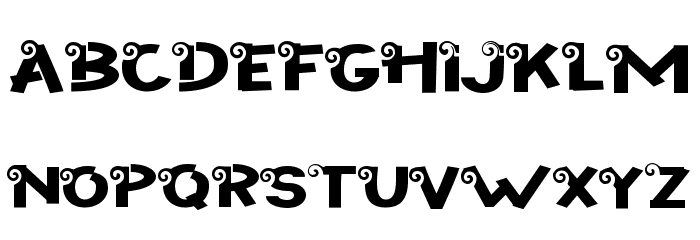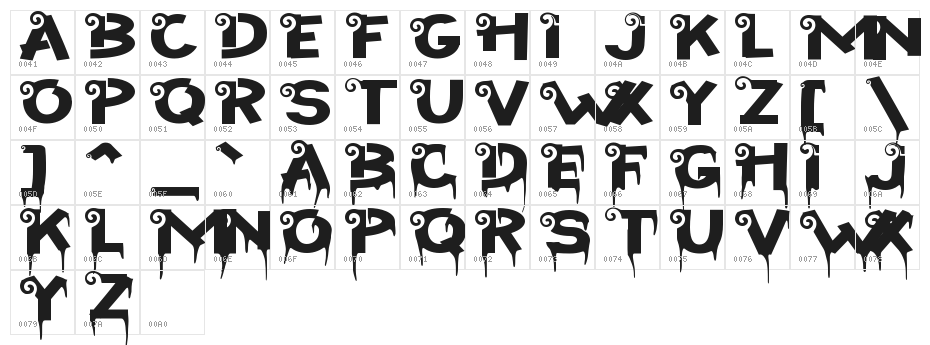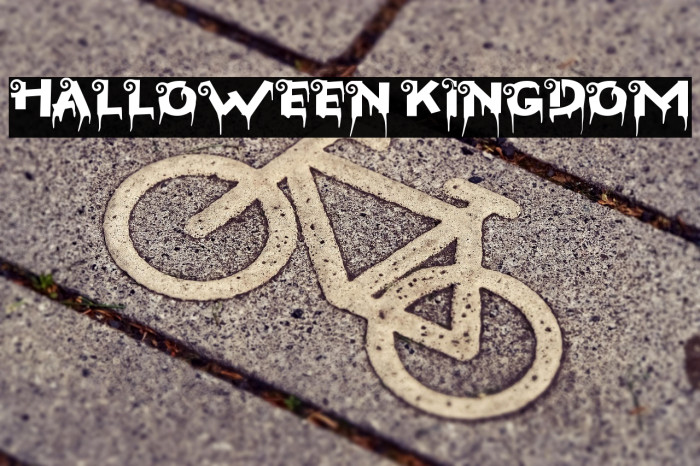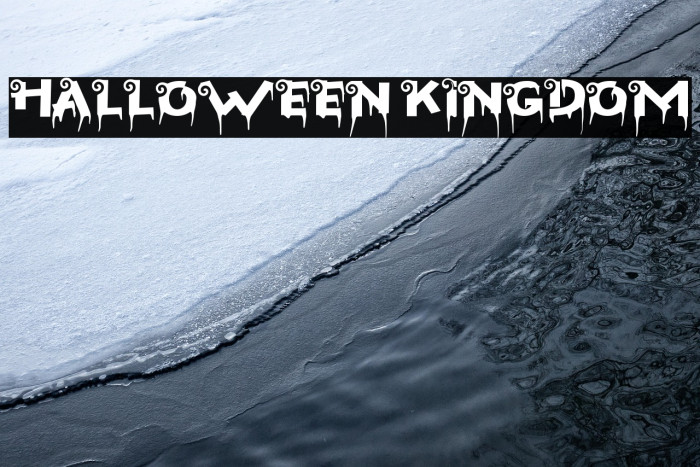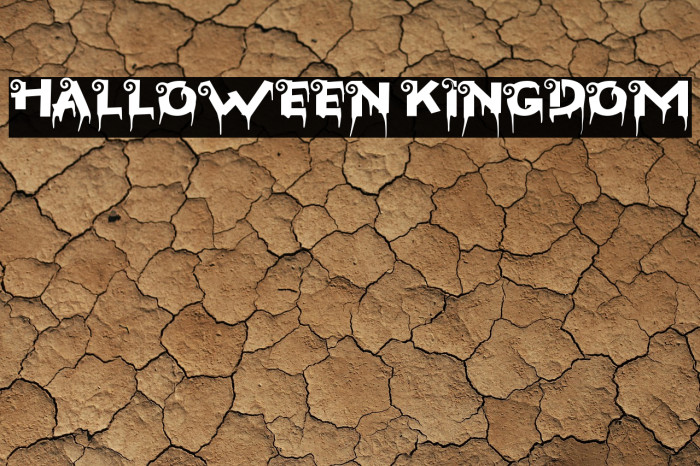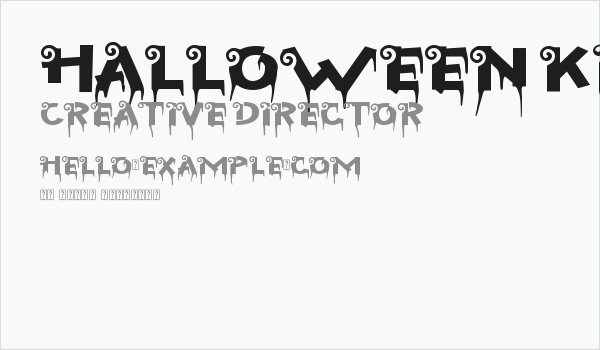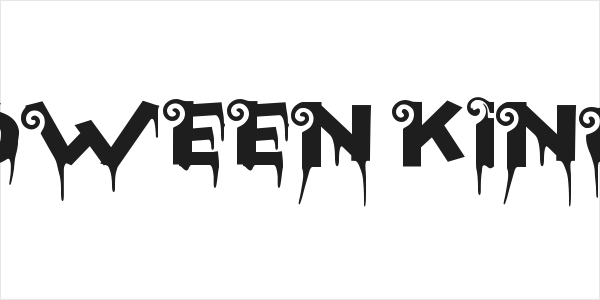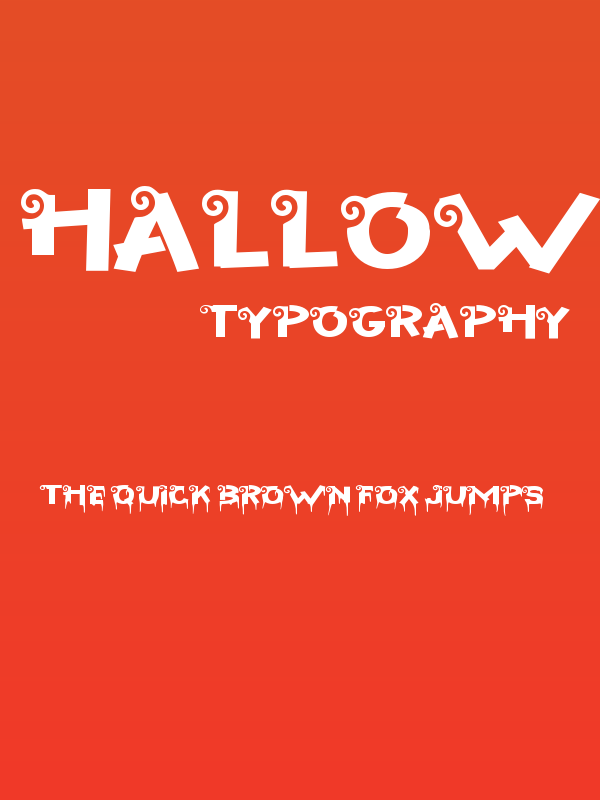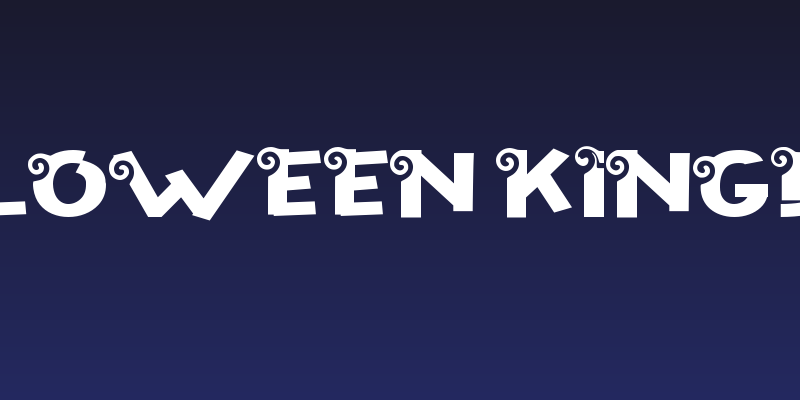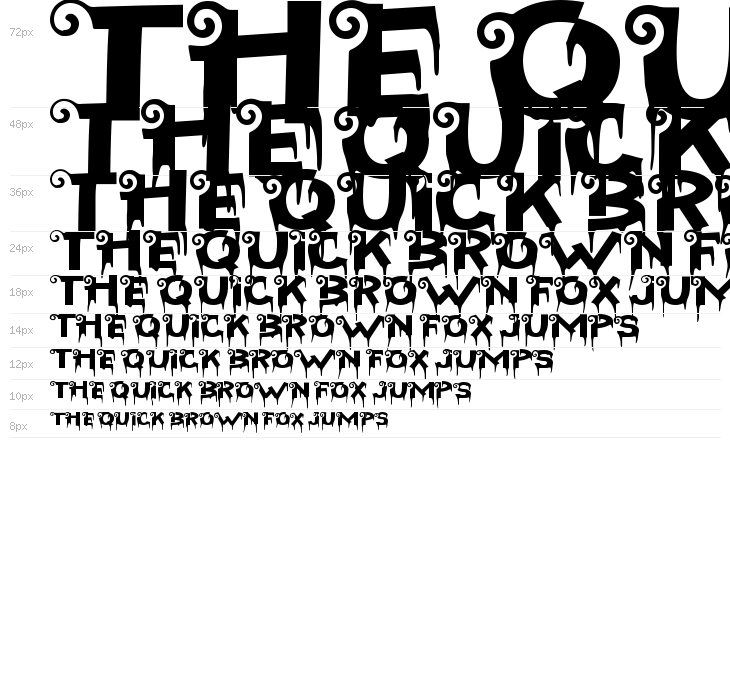
Halloween Kingdom Font
Halloween Kingdom Description
This font features a playful and spooky design, perfect for Halloween-themed projects. The uppercase letters have a whimsical flair with curled accents, adding a touch of mystery and fun. The strokes are bold and consistent, with some letters featuring dripping effects that enhance the eerie vibe. The font maintains a decorative style throughout, making it ideal for festive occasions. Its unique character shapes and embellishments make it stand out, capturing attention with its creative and thematic design.
| Proposed Projects | Ideal for Halloween party invitations, themed posters, spooky event flyers, and decorative signage. |